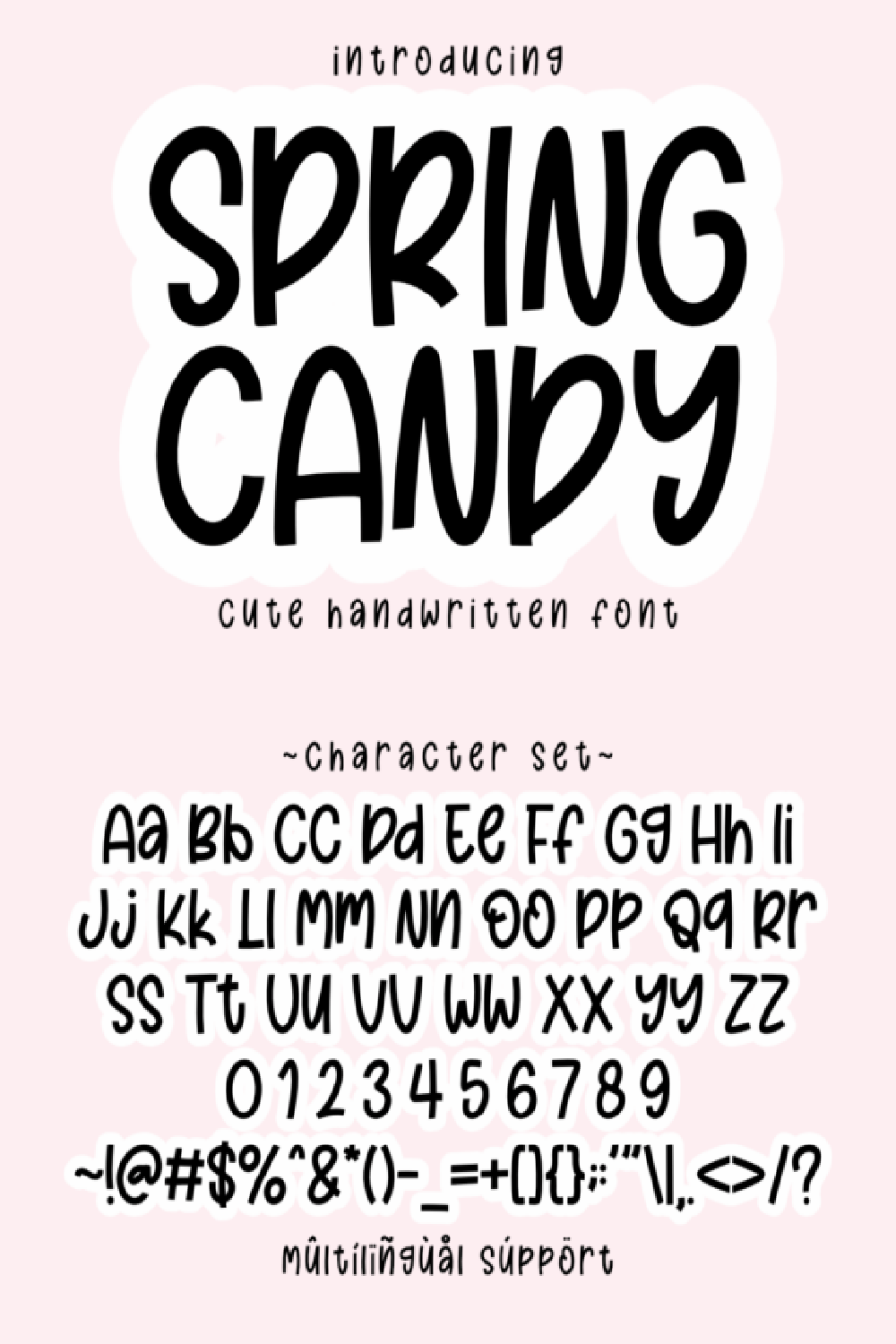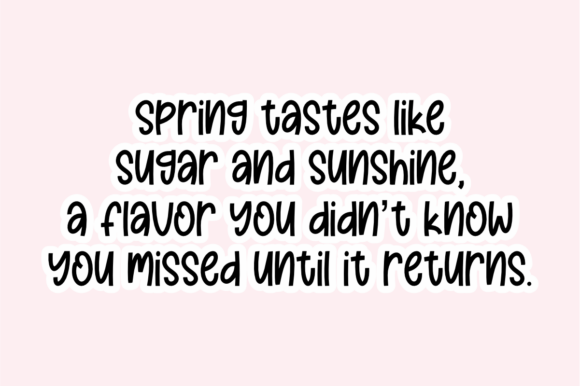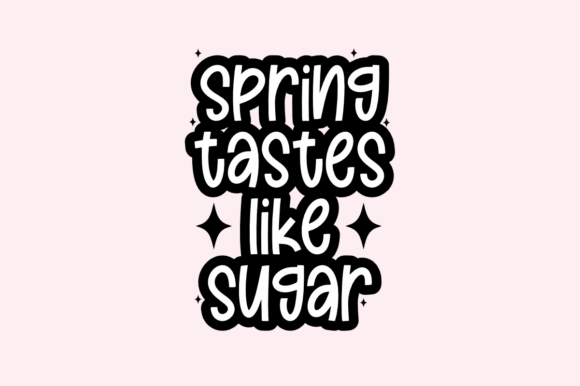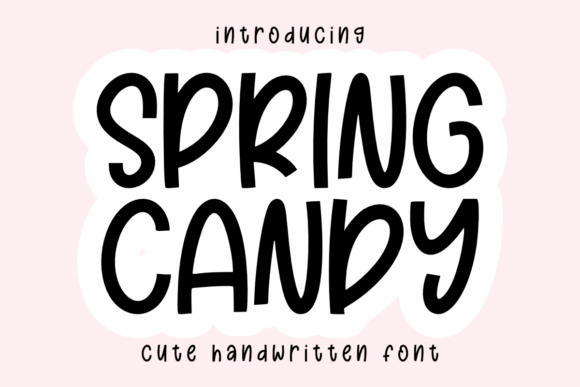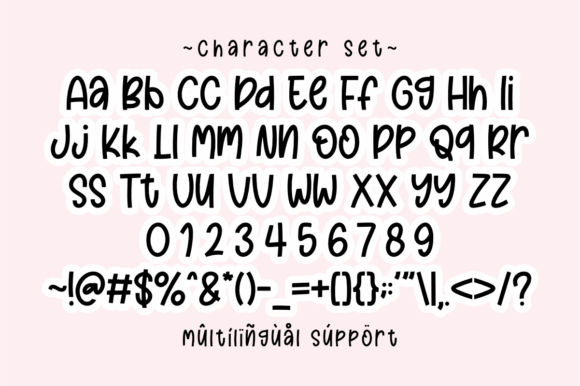
Spring Candy Font: A Cute & Playful Handwritten Font for Cricut!
About the Spring Candy Font
Step up your design game with Spring Candy Font, a font that exudes confidence and style. Spring Candy is a cute and playful handwriting font, perfect for planners, stickers, cards, quotes, and craft projects. Ideal for creative moms who love DIY, journaling, and Cricut crafts!
Spring Candy Font Usage Examples